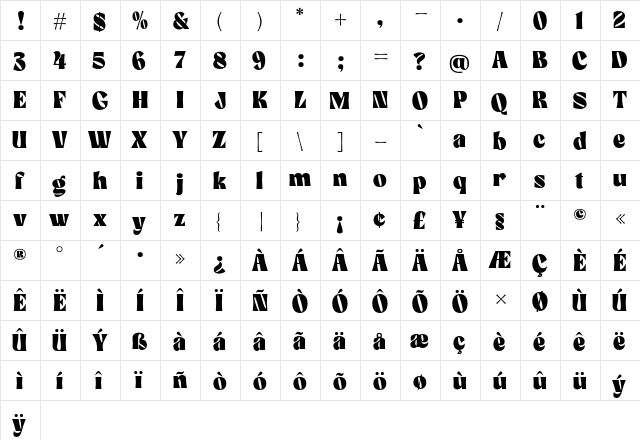
Palmas Regular Free Font
Palmas Regular
Foundry: Viswell Studio
Designer: Agam Rahmadan
Design Context for Palmas
Palmas is a composed and adaptable typeface that performs quietly and consistently across a wide range of design contexts.